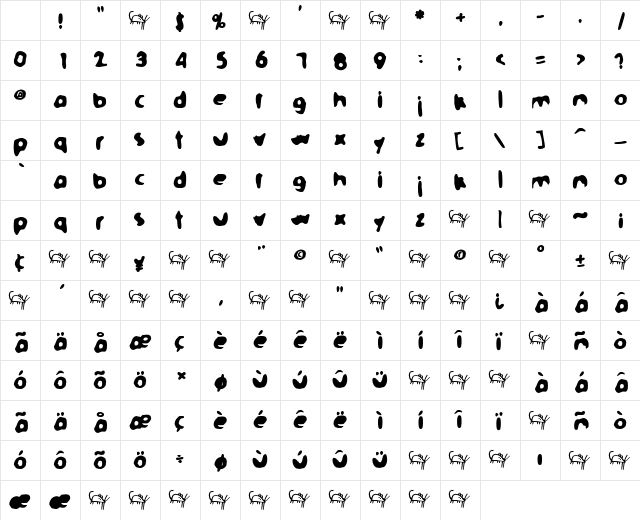
Complete BluePugg Medium glyph index. Displaying only characters natively supported by BluePugg Medium font.
BluePugg is a composed and adaptable typeface that performs quietly and consistently across a wide range of design contexts.